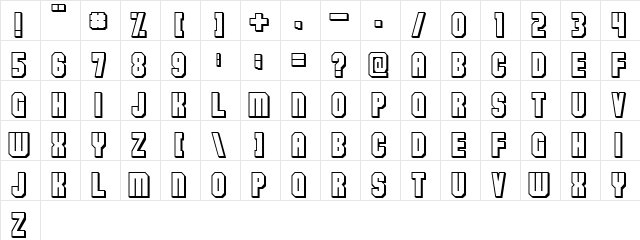
Flashback version 3 Regular
Design Context for Flashback version 3
Flashback version 3 is a composed and adaptable typeface that performs quietly and consistently across a wide range of design contexts.
Pro Tip: Use Flashback version 3 in both headline and body roles to test its range before committing to a single application.